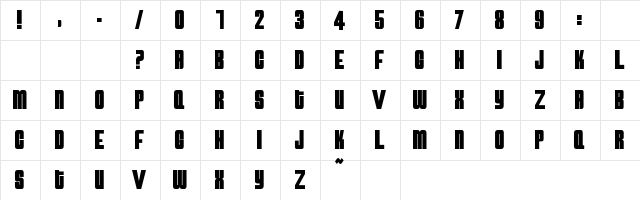
AtomicBomb Regular Font Preview
AtomicBomb Regular
AtomicBomb Regular Font Details
Design Context for AtomicBomb Typeface
AtomicBomb is a composed and adaptable typeface that performs quietly and consistently across a wide range of design contexts.